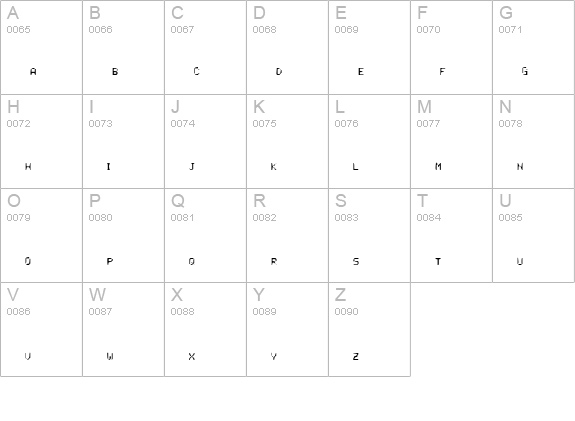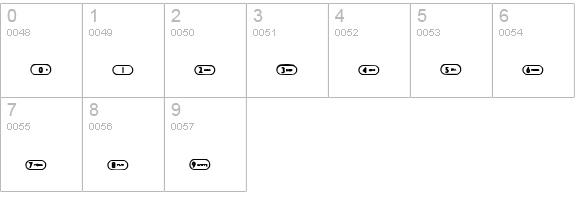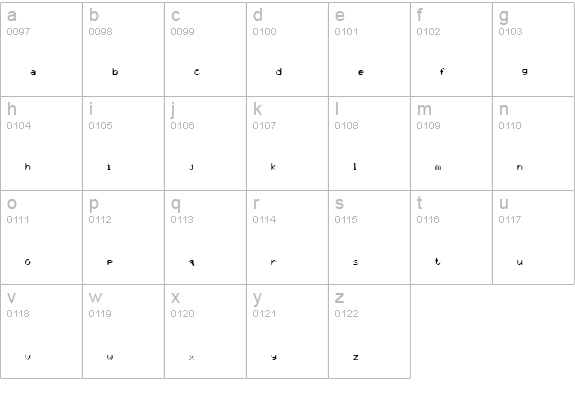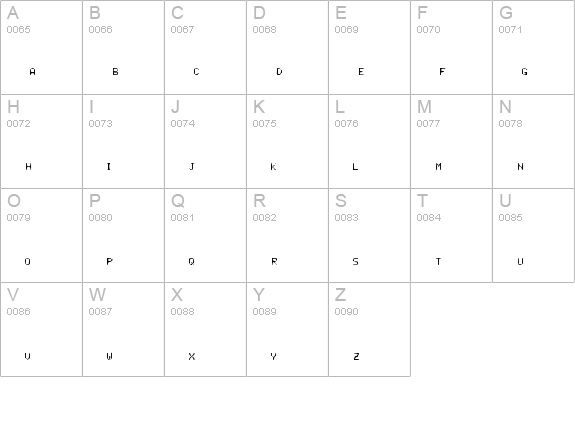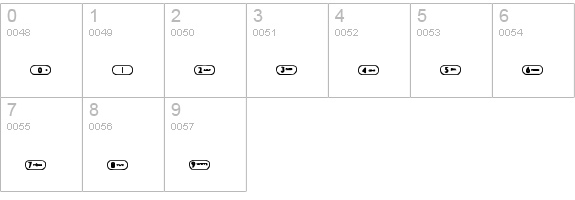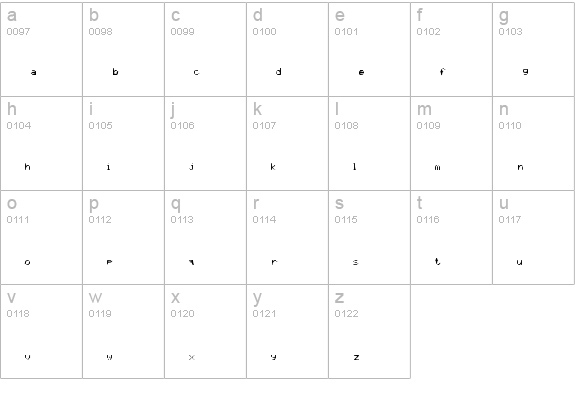
A Mobile Life Font Details
Introducing A Mobile Life font - a captivating and dynamic typeface that embodies the essence of modernity and technological advancement. This font is designed to bring a sense of mobility and fluidity to your designs, allowing them to effortlessly adapt to the fast-paced digital era. A Mobile Life font boasts a unique combination of sleek lines and contemporary curves, creating a harmonious balance between elegance and functionality. Its versatile nature makes it suitable for a wide range of design projects, including websites, mobile applications, branding materials, and more. One of the most remarkable aspects of A Mobile Life font is that it is available for free download at FontsMarket.com. This means that you can enhance your creative endeavors without any financial constraints, unlocking endless possibilities for your designs. With just a few clicks, you can access this exceptional font and infuse your projects with a touch of sophistication and modernity. Whether you're seeking to create eye-catching headlines, engaging user interfaces, or visually stunning graphics, A Mobile Life font is your perfect companion. Its legibility and distinctiveness ensure that your message will be conveyed with clarity and impact, captivating your audience and leaving a lasting impression. Embrace the freedom of creative expression with A Mobile Life font, and let its sleek and modern design elevate your projects to new heights. Download it for free at FontsMarket.com and embark on a journey of innovation and visual excellence.